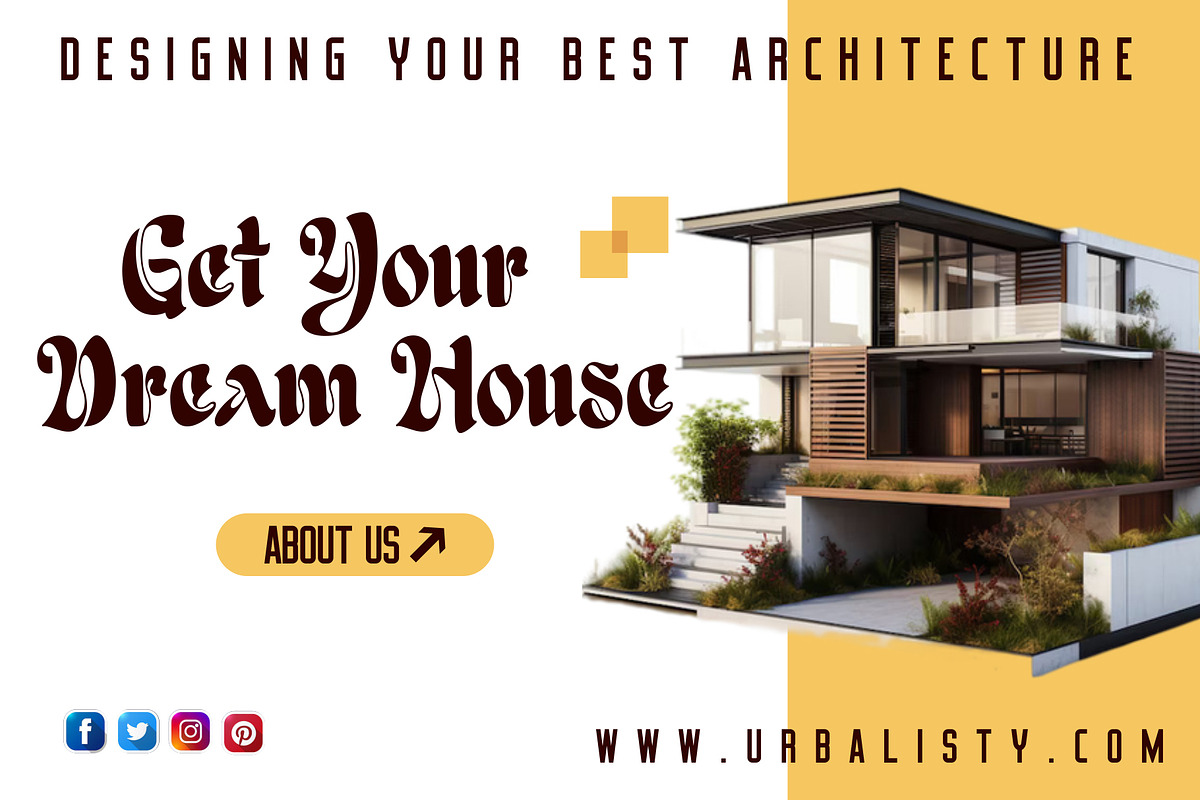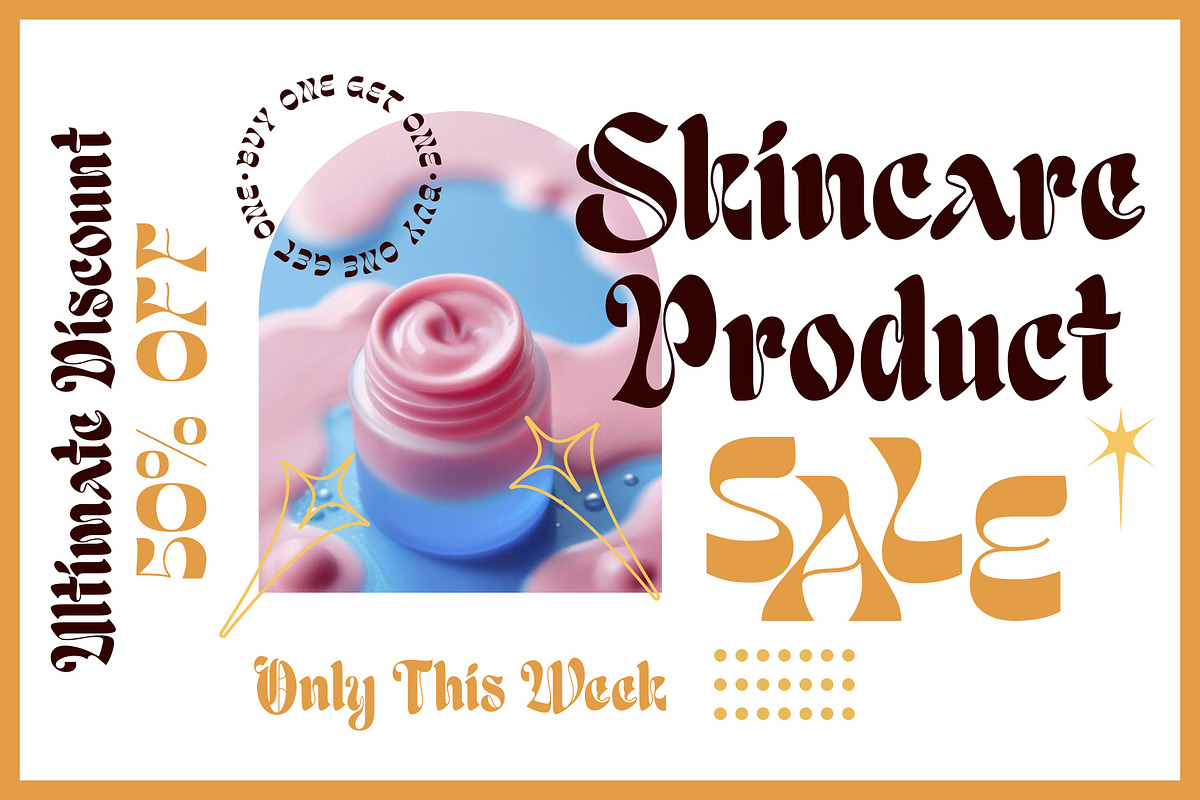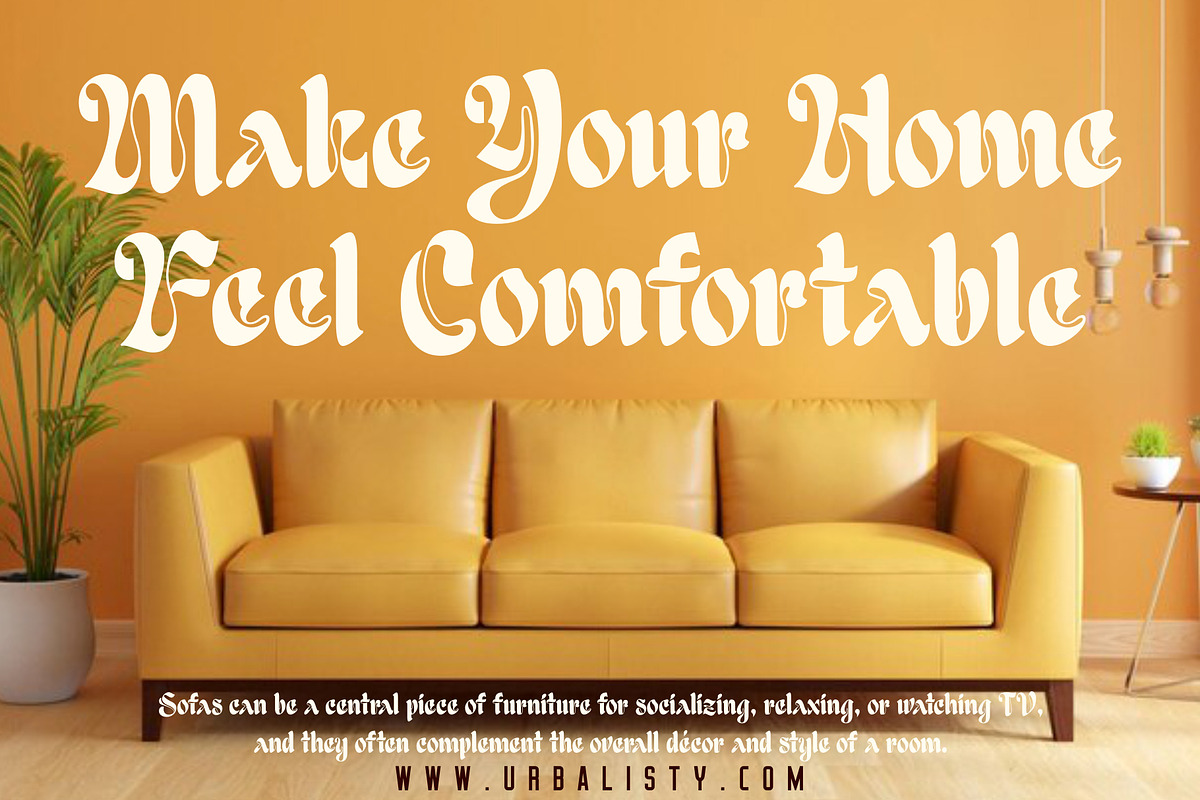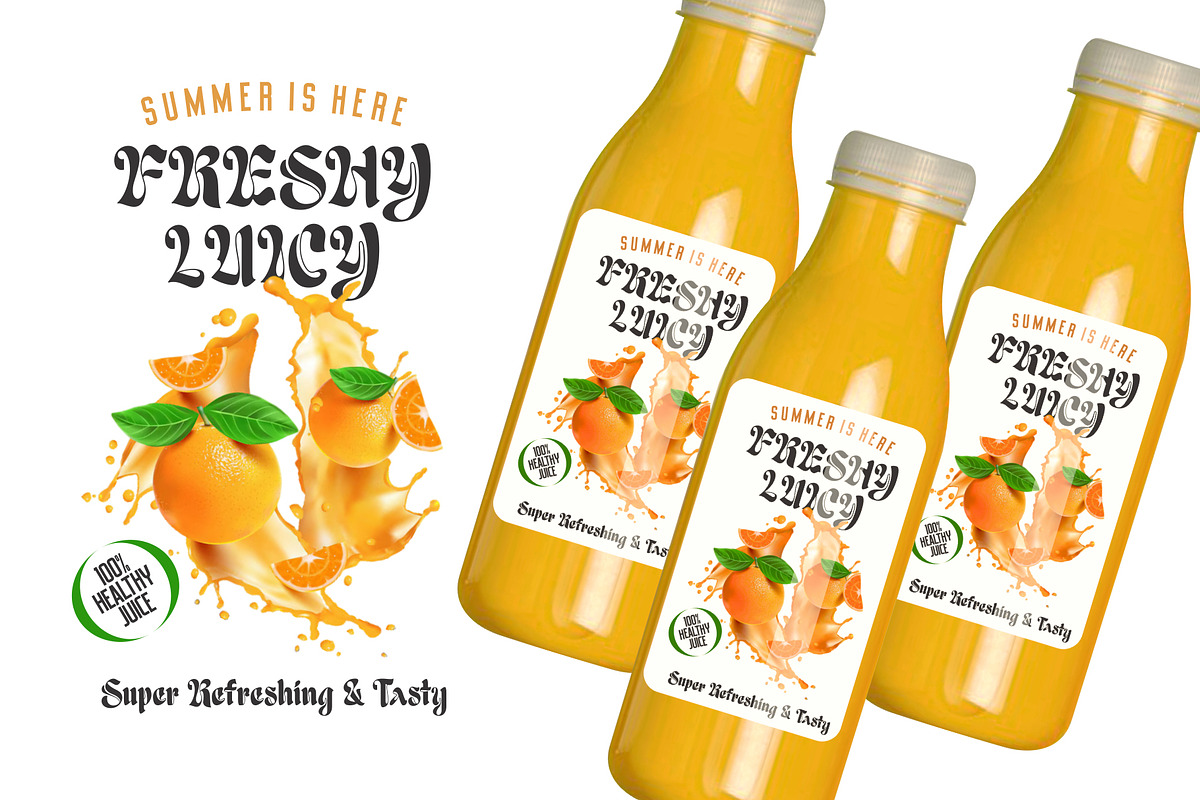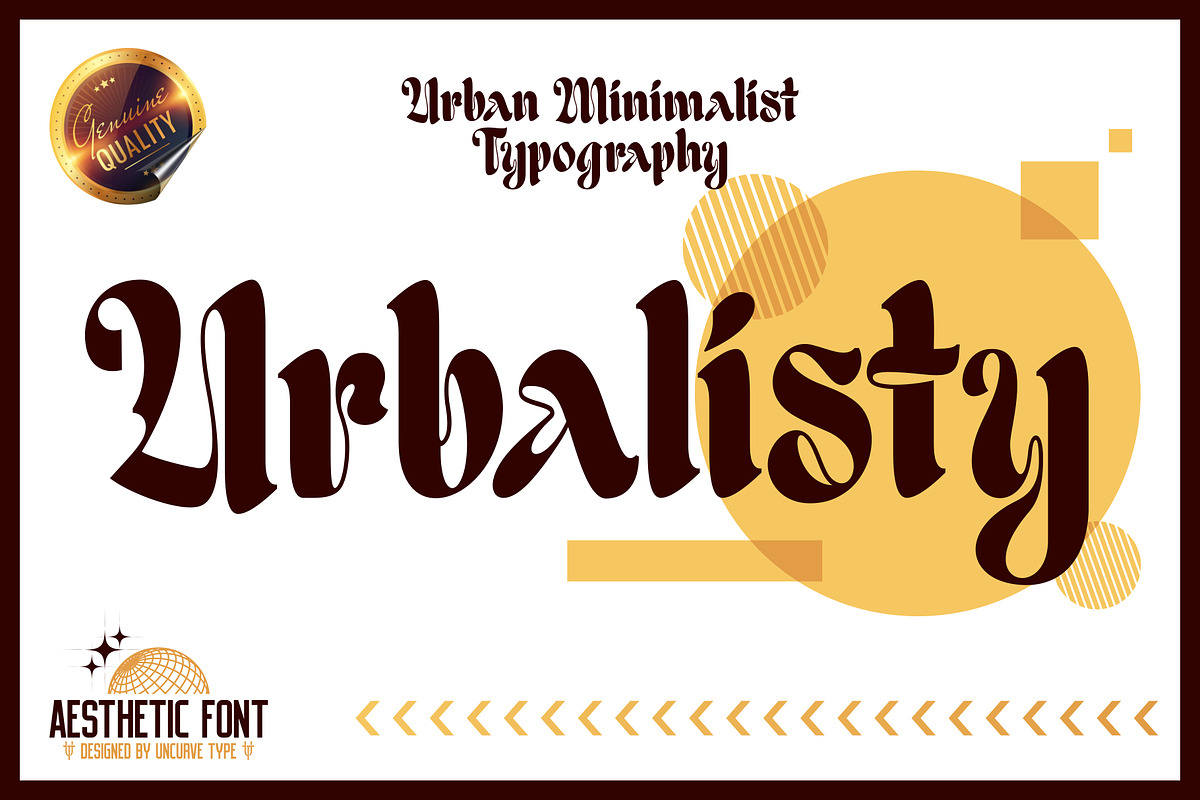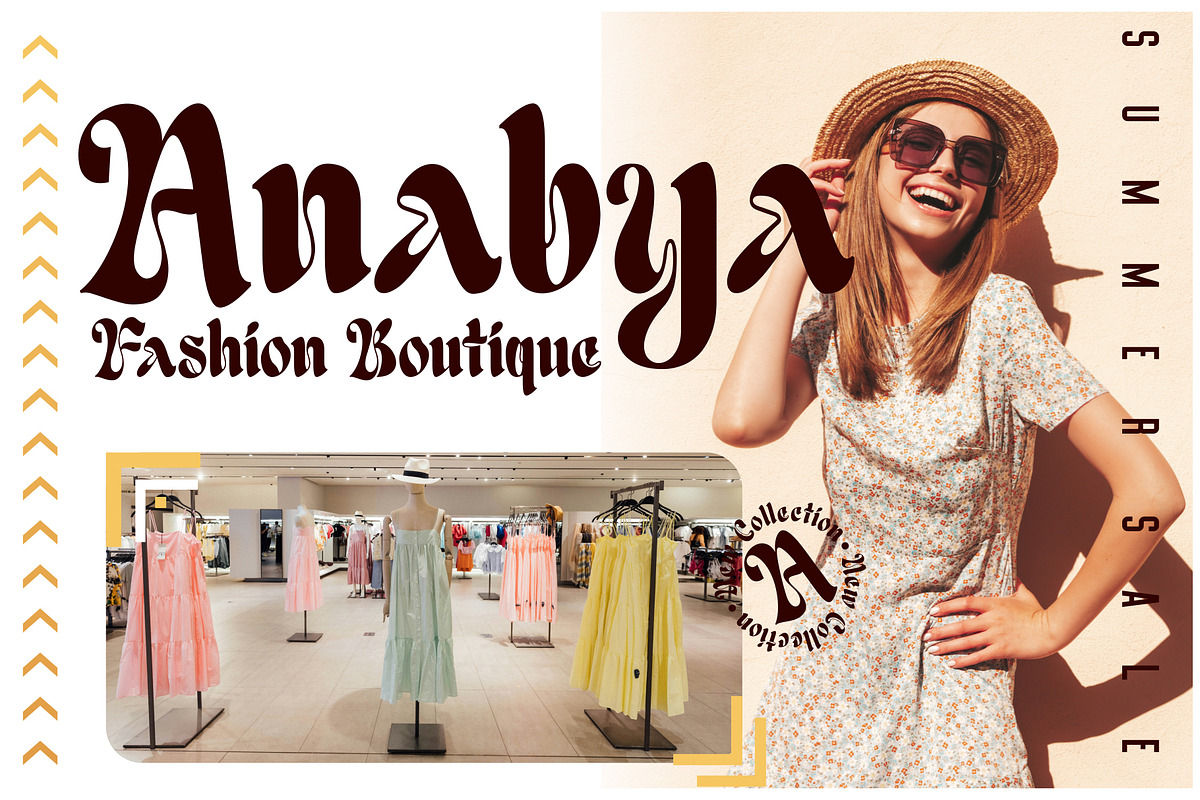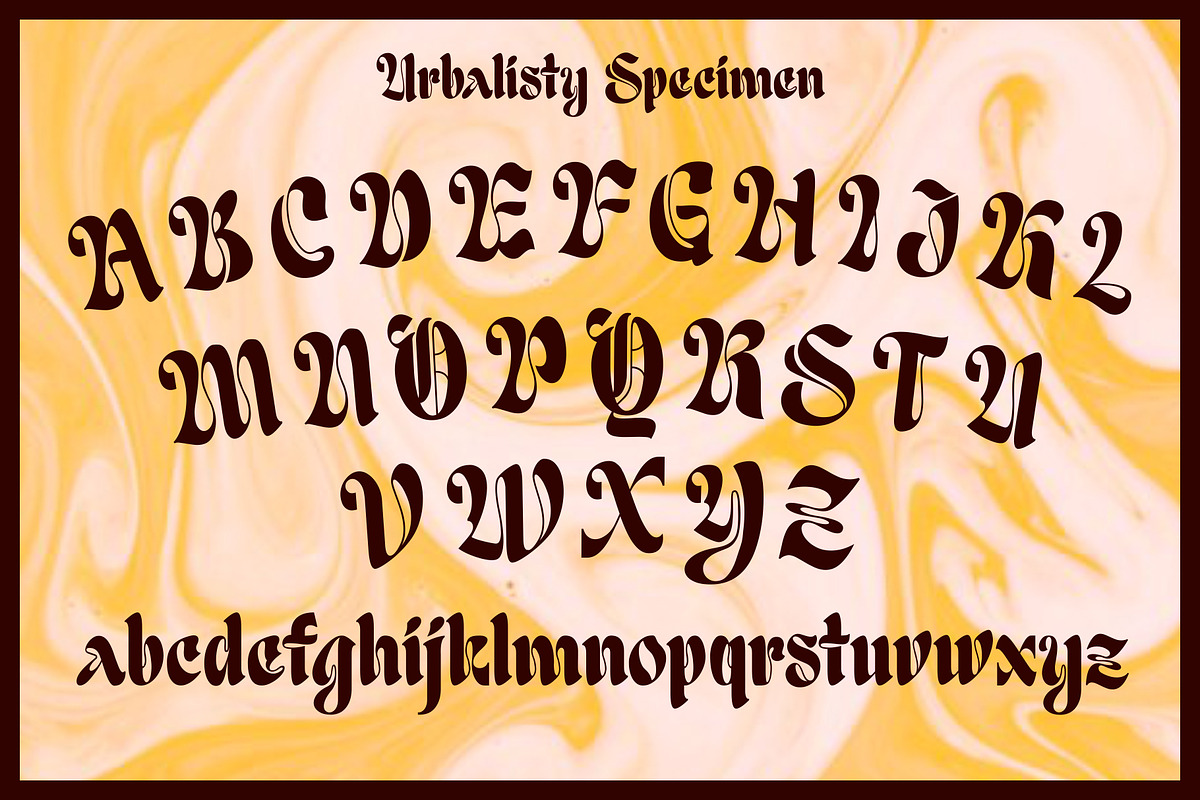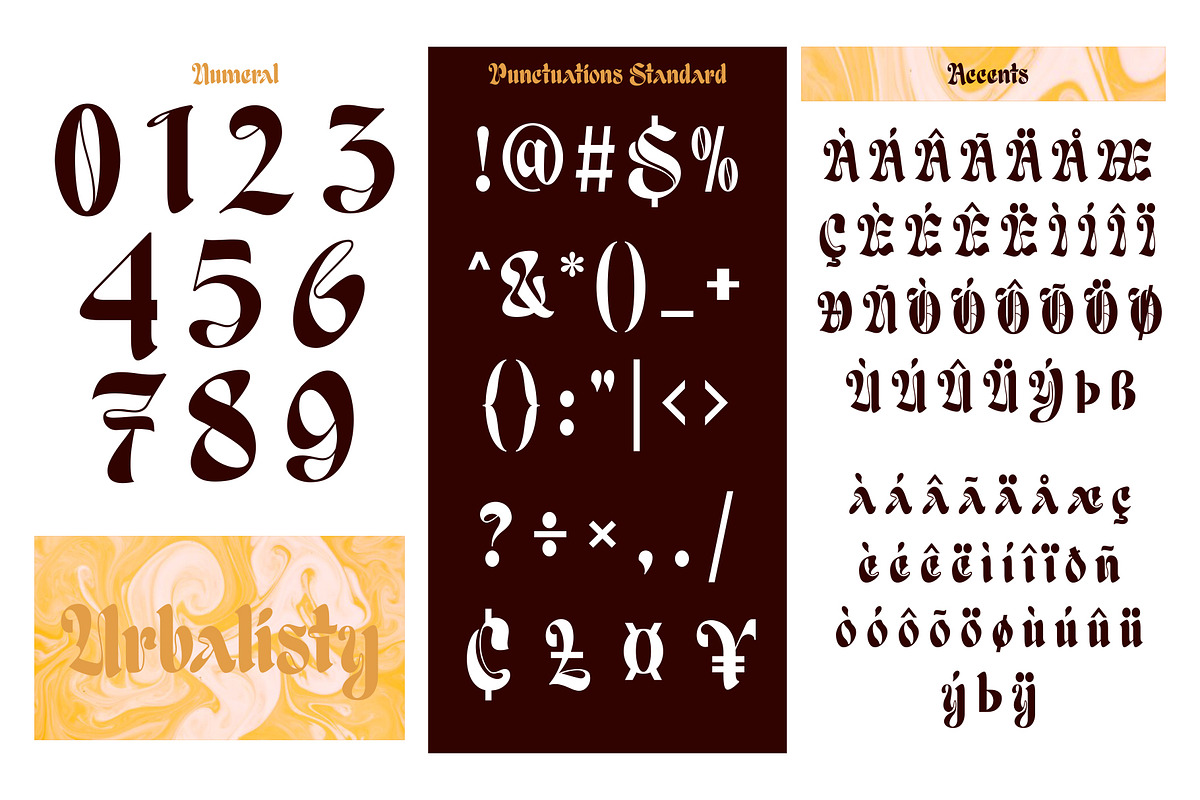
Urbalisty
Introducing " Urbalisty " a modern and semi-calligraphic font that blends decorative elegance with contemporary style. Urbalisty is the perfect choice for those looking to add a touch of sophistication and flair to their design projects. Ideal for logos, branding, websites, advertising, and product designs, Urbalisty brings a unique and stylish look to any visual composition. Its decorative and display typography makes it suitable for a wide array of applications, ensuring your designs stand out with distinctive charm.
Whether you're designing stationery, magazines, book covers, or titles, Urbalisty's graceful curves and elegant strokes enhance readability while adding an artistic touch. Perfect for photography captions, art quotes, wedding designs, and fashion projects, Urbalisty helps you capture the essence of your special moments and creative ideas.